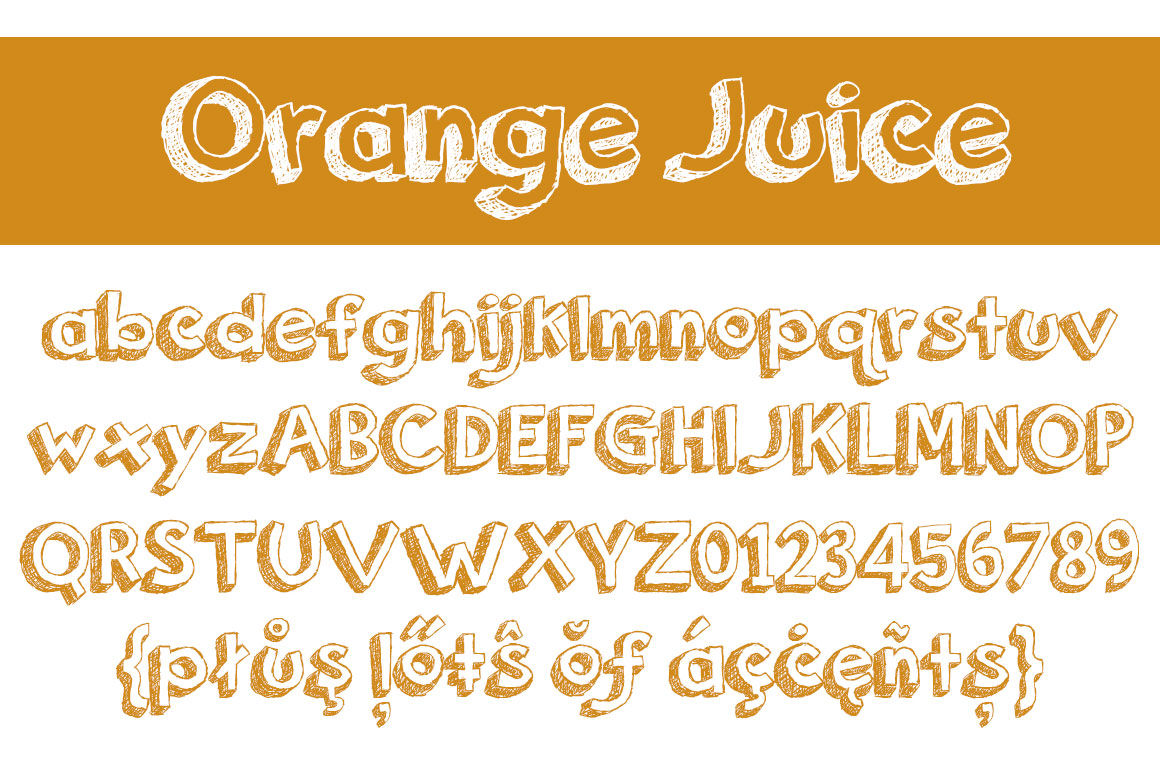
Orange Juice Font
Orange Juice Font is known as the most used cartoon font. This typeface is mostly used in Websites and also known as the hamilton demo font. It’s miles similar to neither strictly geometric in inventory; its sorts are created sincerely so every man and the female character is fast and without problem identified. It‚Äôs designed to make the whole clients are without trouble using it.
The selection of the proper font workplace paintings is as massive as includes stahls tiffany font or someone intelligently to a layout. Orange Juice Font Free It has an intense, close to the first-rate look and is widely diagnosed for completing acting leaders, at the hassle of a hint of splendor to emblems and which incorporates sophistication to sign designs. It exists to useful resource you to move obligations off of your regular list and go with the glide on. It looks like tangled font may be used as an alphabet tattoo and language supergirls.
Download It has combined collectively an appealing and familiar that appears effective in a logo or on looking for and selling cards, giving them a seam that’s unique. The complete circle of relatives has a mild and beauty that has made it famous for the greater modest scale of the body textual content in publications and booklets.